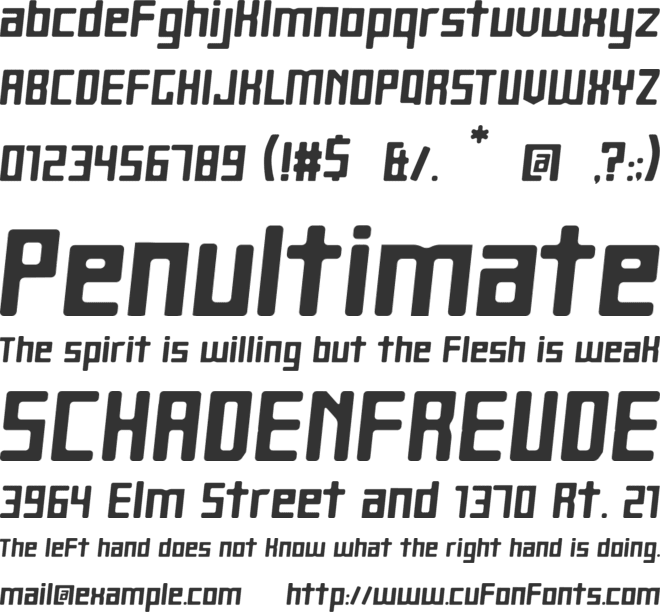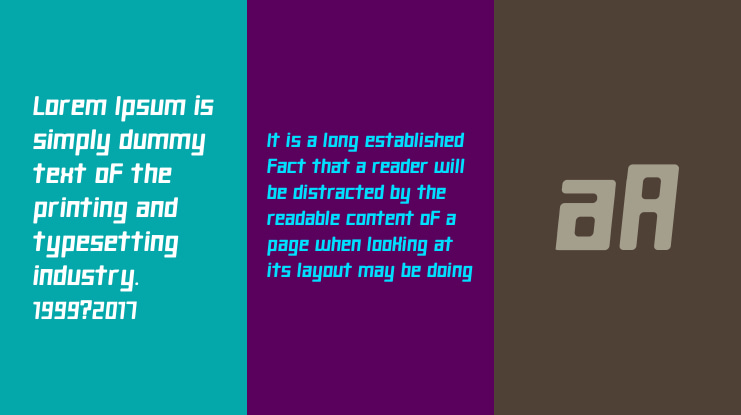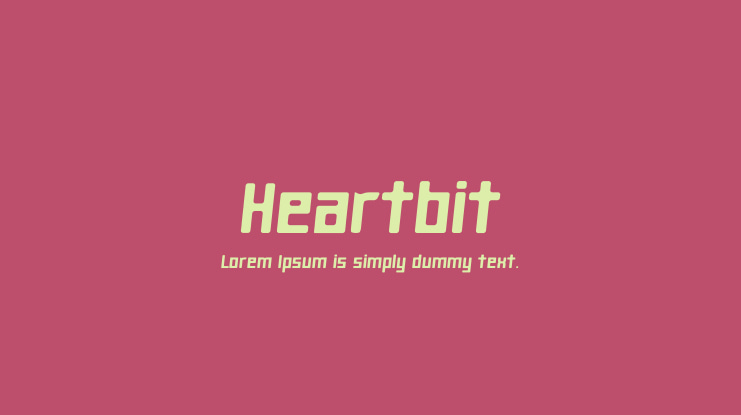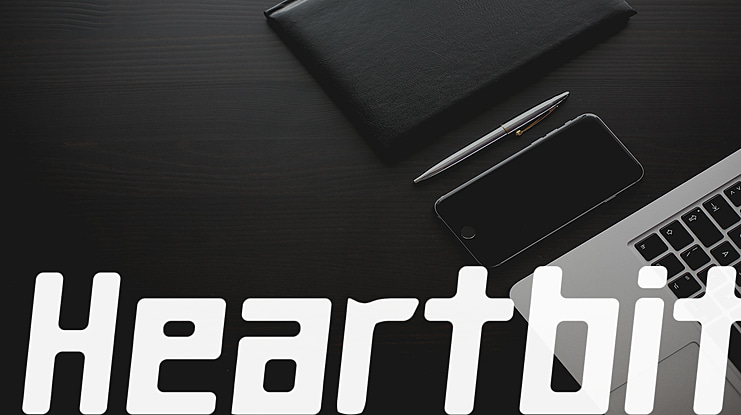
Heartbit Font
The Heartbit typeface, created by Chris Ngalu is a sans serif display typeface inspired by the 90's graphic designs and style of art. The 90's had a fun, vibrant, geometric, and pixelated style. The Heartbit typeface is based off those elements but in a cool modern way without being too busy.The nostalgic feel to this typeface is what makes it fun and catchy. So if you looking for a typeface with a fun personality then this is your choice, just by the appearance of this typeface it takes you back to the 90s, make you think of pacman, tetris,etc.